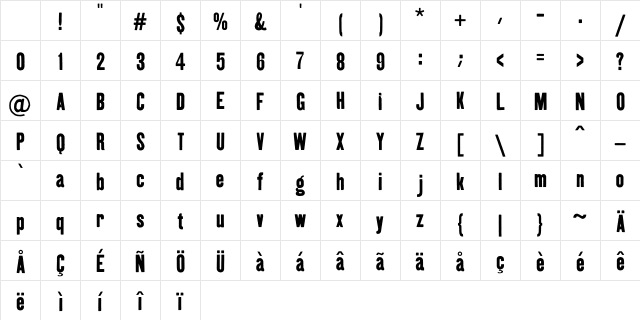
Complete Kipp No1 glyph index. Displaying only characters natively supported by Kipp No1 font.
Kipp is a composed and adaptable typeface that performs quietly and consistently across a wide range of design contexts.